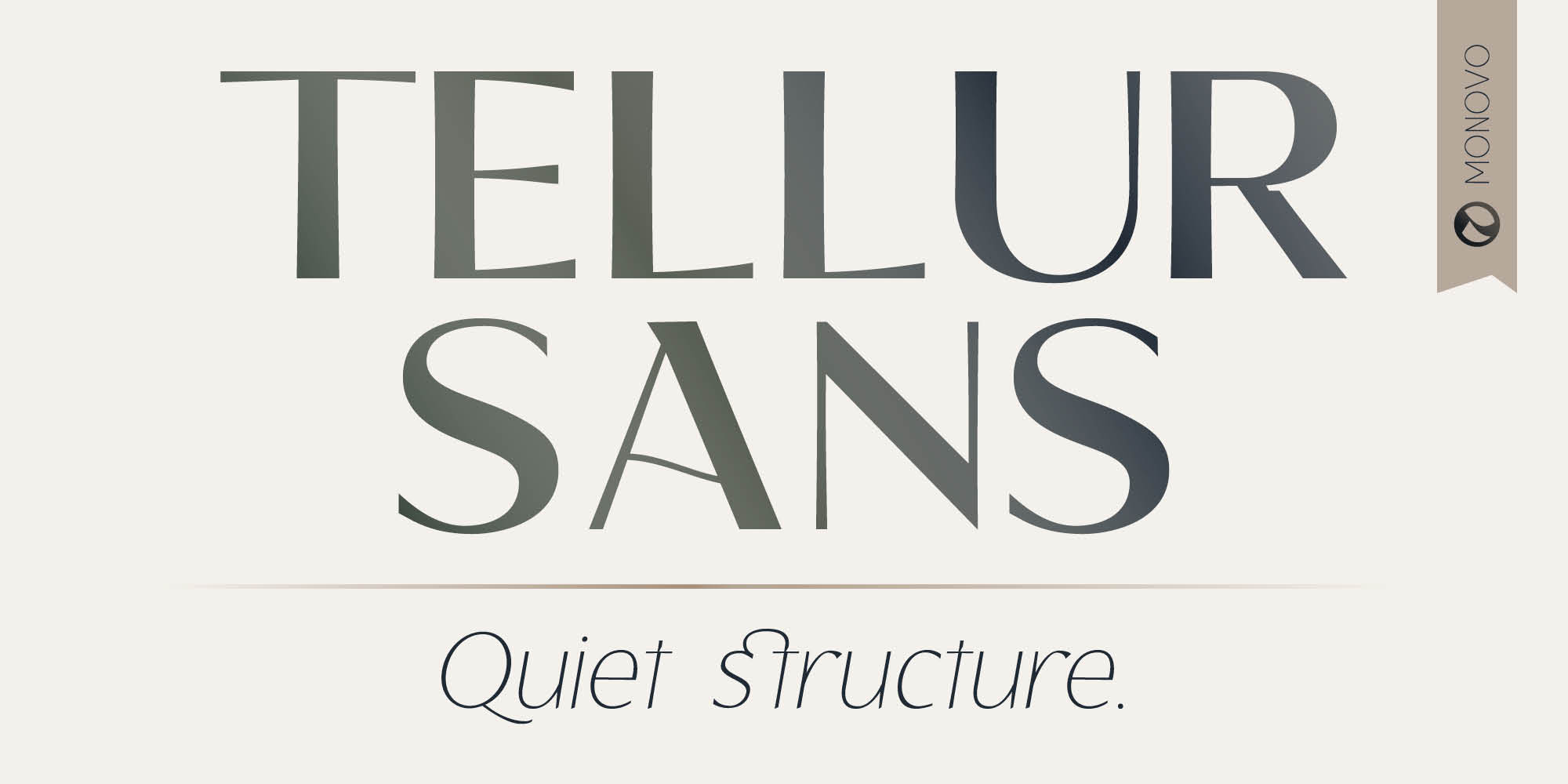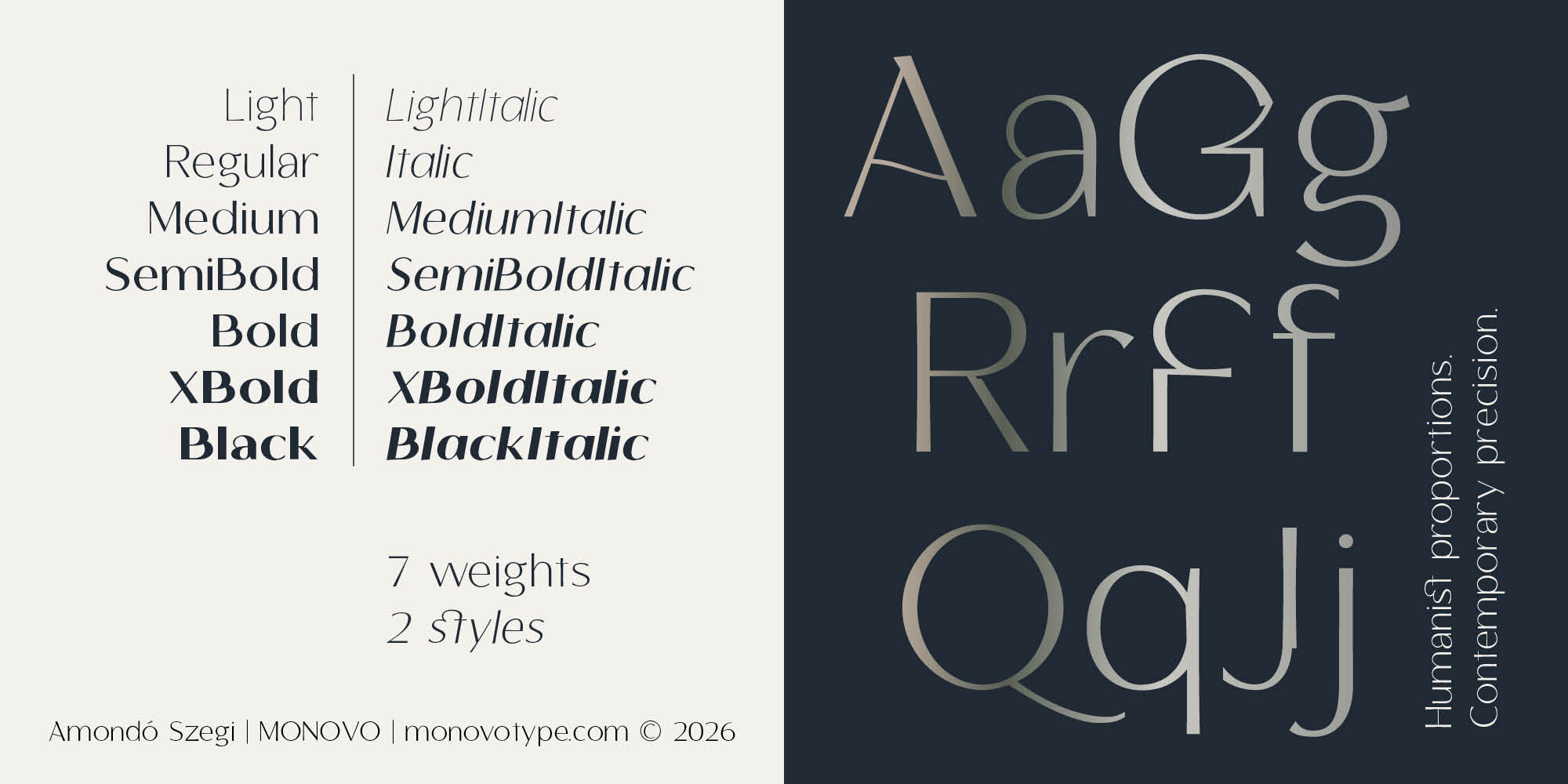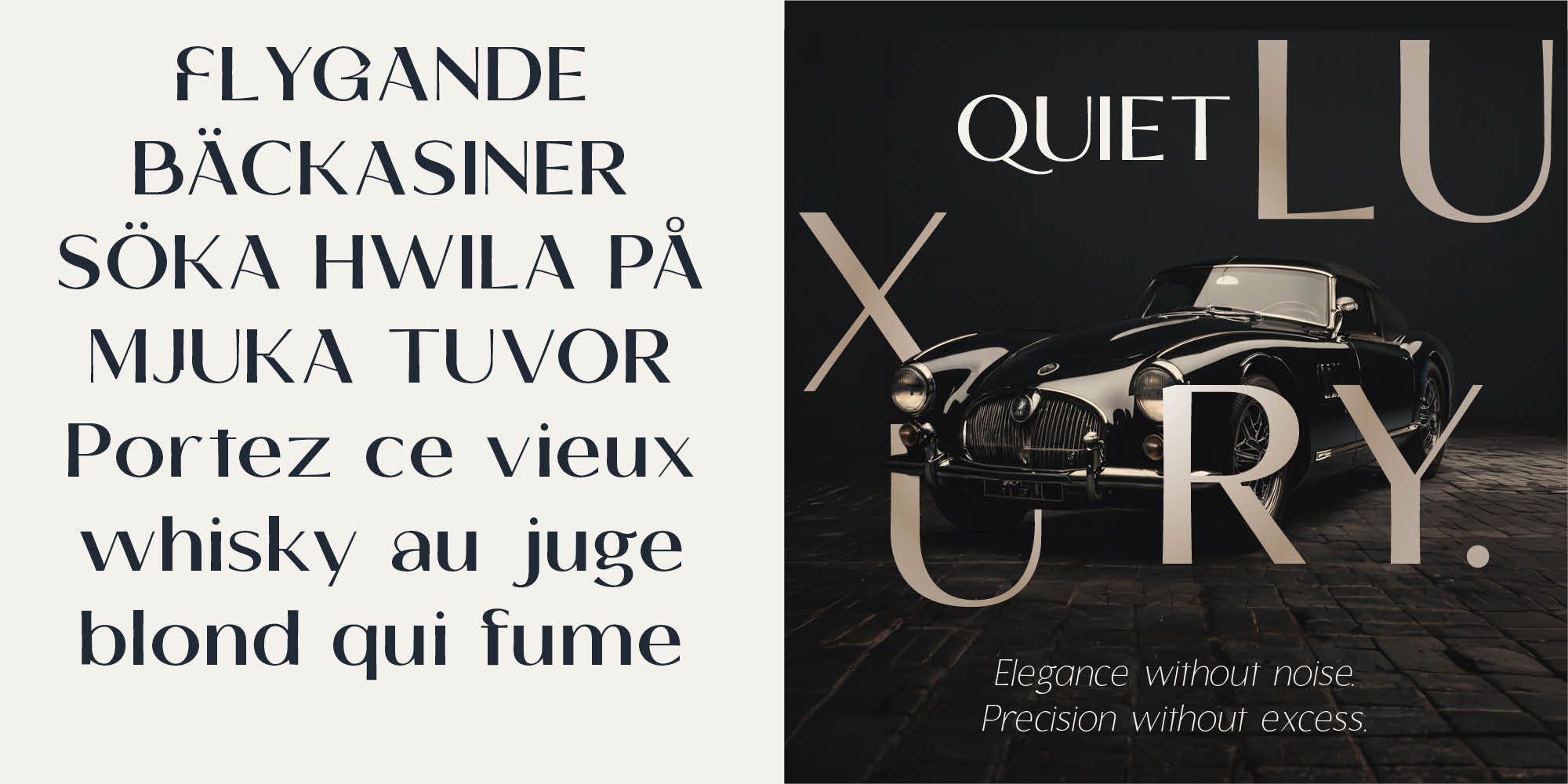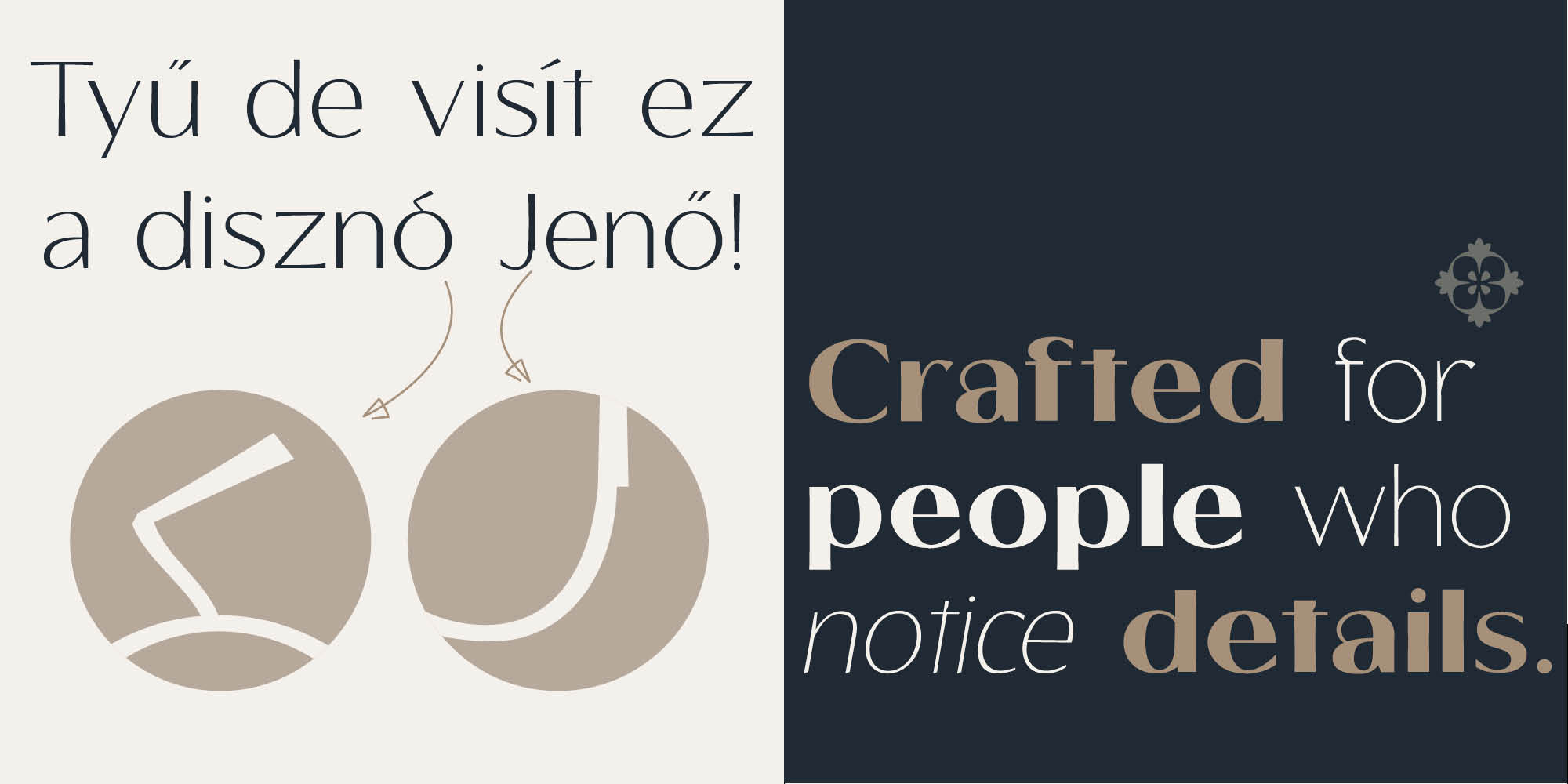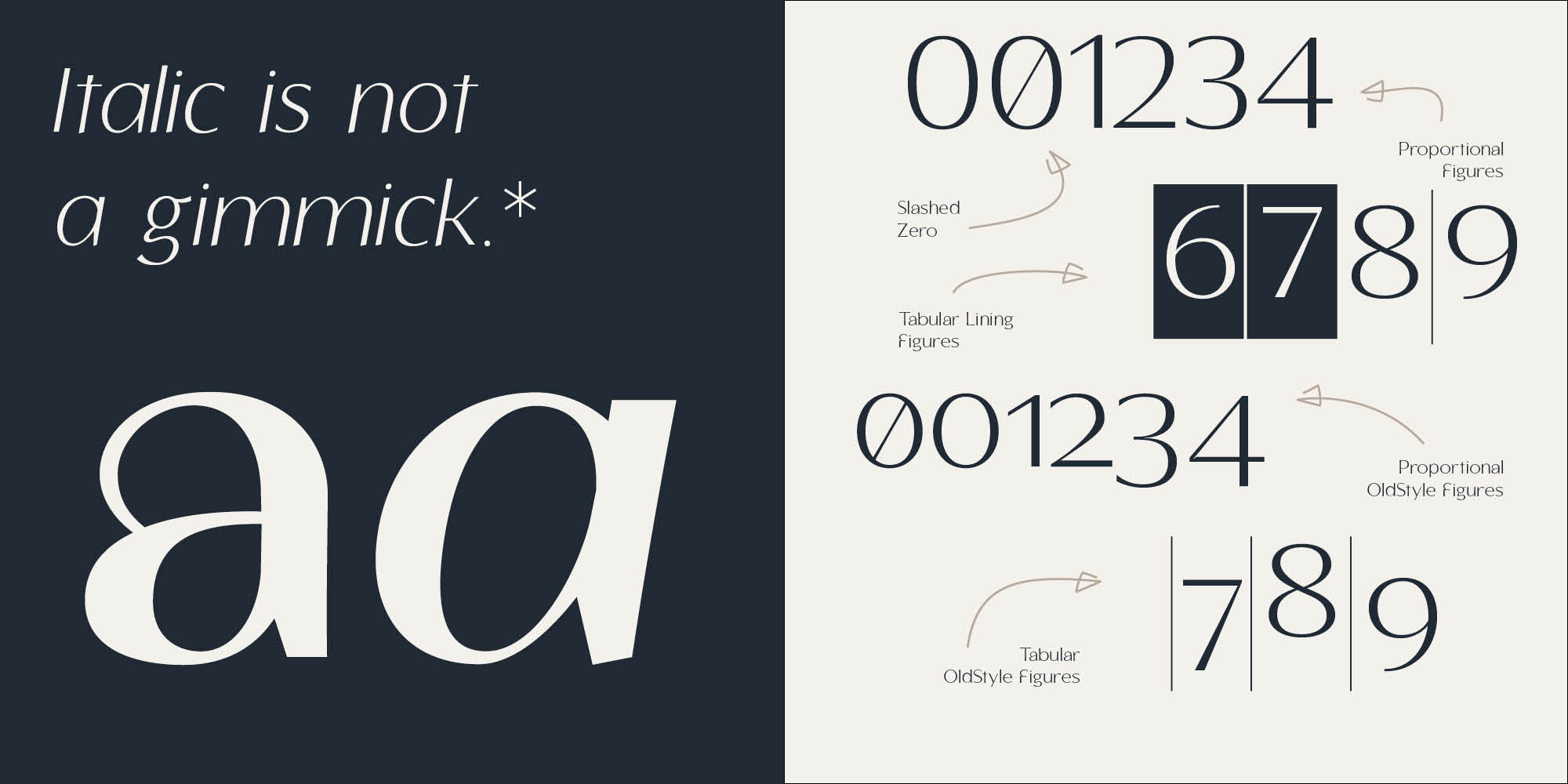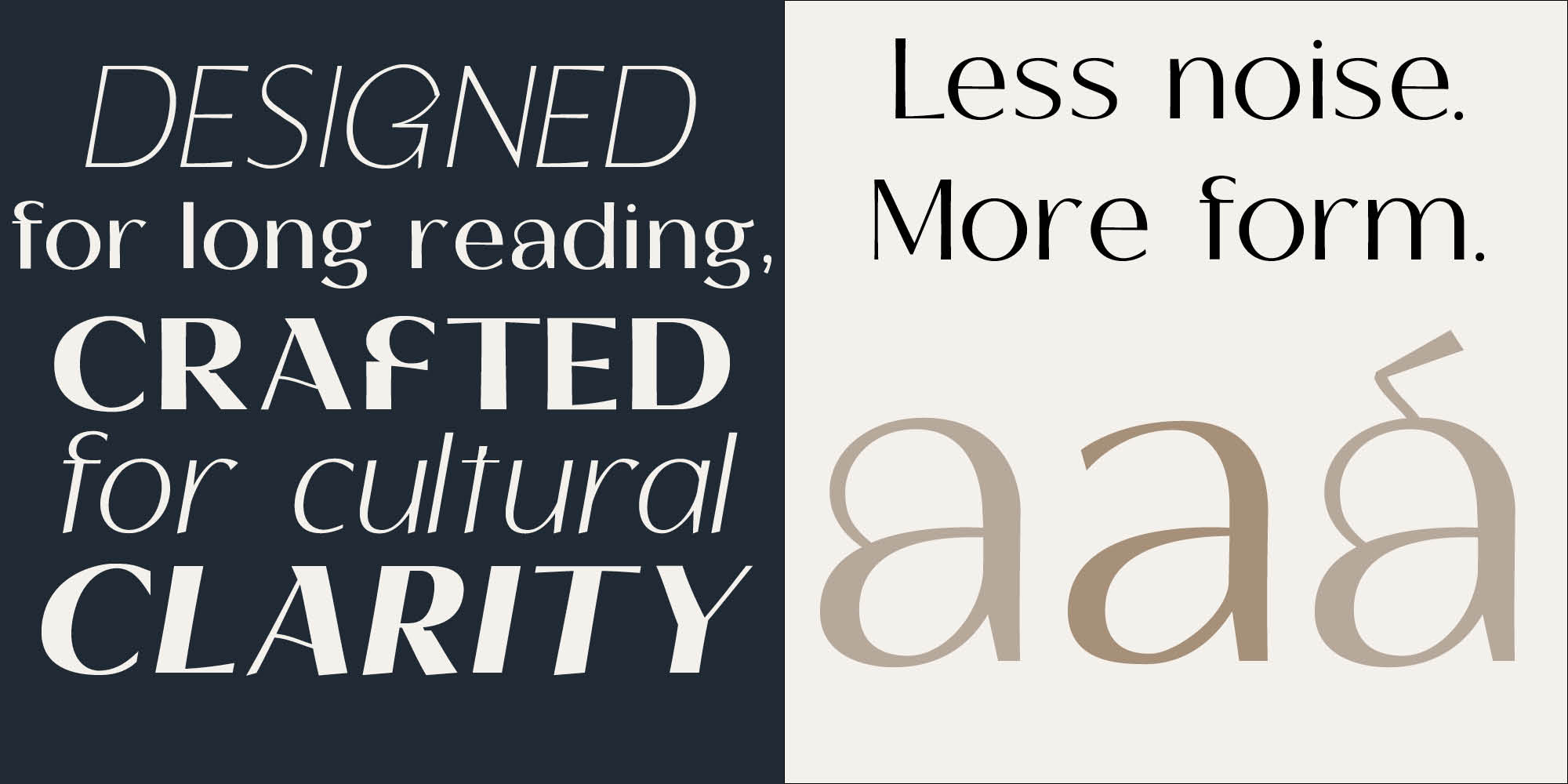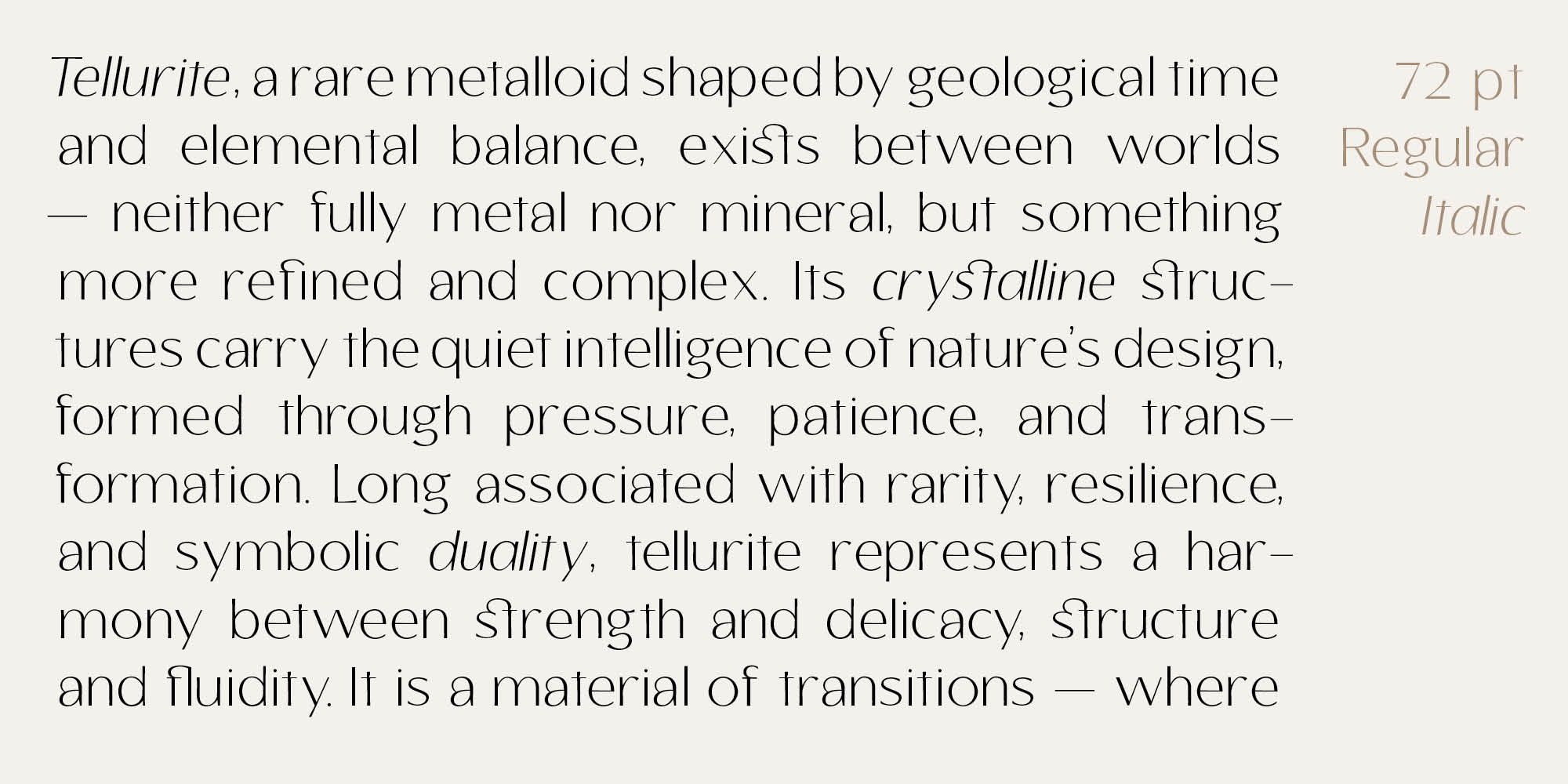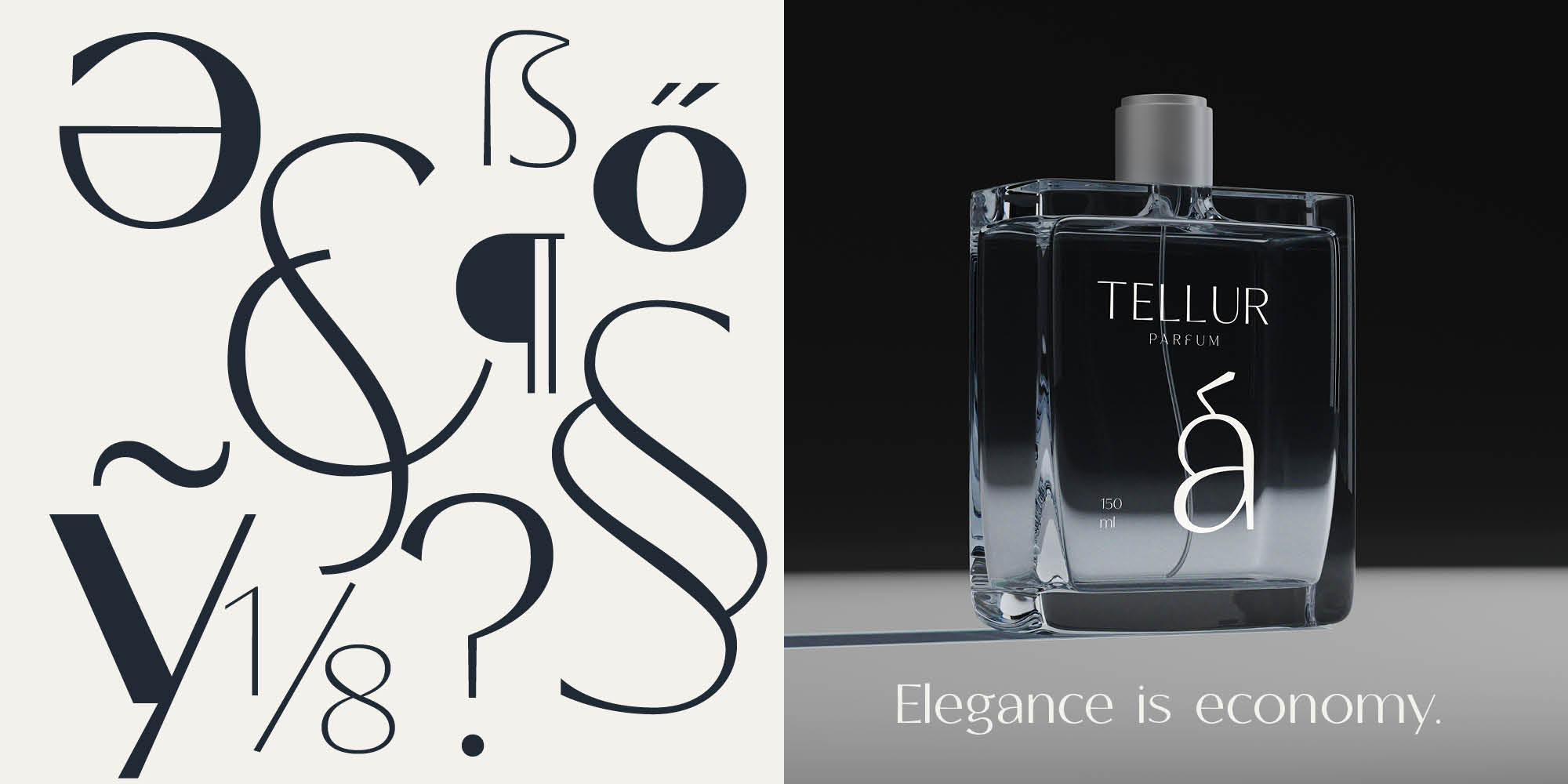
A contemporary humanist sans where classical proportions meet modern precision—designed for editorial systems, cultural identities, luxury branding, and digital platforms where typography carries meaning.
Tellur Sans balances readability with character.
The flowing ‘f’, the closed-aperture ‘G’, and refined alternates introduce subtle individuality without breaking composure. The italics are purposeful rather than decorative. It performs with equal confidence in display typography and extended text.
Extended Latin support, stylistic alternates, ligatures, fractions, and old-style figures are included. OpenType features offer flexibility without complexity.
Named after tellurite, the rare metalloid, Tellur reflects a tradition of humanist craft and structural clarity rooted in Central European typographic culture—reinterpreted for contemporary use.
For designers who value structure, culture, and quiet innovation.
Tellur Sans